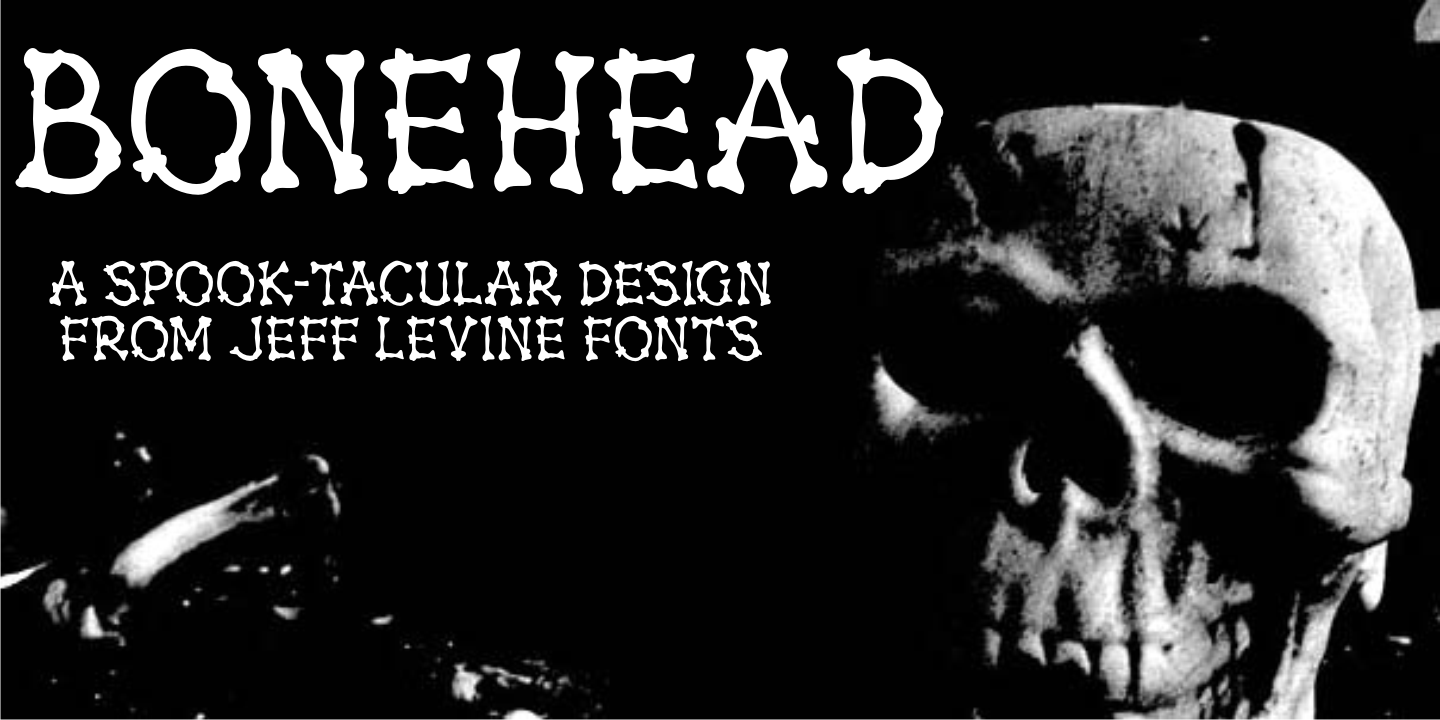
Bonehead
Thematic fonts aren't always big sellers, but they do serve a purpose for specialty projects and applications. Bonehead JNL is a novelty typeface that is constructed out of bones.
Whether the need is for a pirate theme, Halloween, horror movies or for things that go bump in the night, this font will fill the bill – no bones about it. Oh, wait! Yes there are!